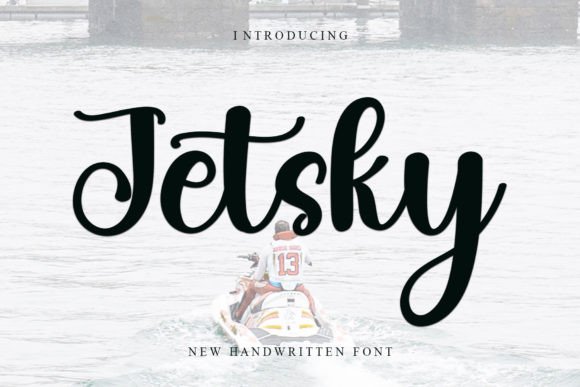
Journey into the realm of elegance with Jetsky, a breathtaking handwritten font family. Created by the visionary designers at FreshTypeINK, Jetsky stands as a testament to the power of cursive artistry. Its unique characteristics make it not just a font, but an expression of creativity and sophistication.
Immerse yourself in the depths of Jetsky's allure and discover a world where charm meets versatility. With its graceful curves, delicate strokes, and an inherent sense of romance, Jetsky transforms your digital creations into masterpieces. Whether you're crafting heartfelt greeting cards, designing eye-catching headlines, or adding a touch of magic to your email correspondence, Jetsky will elevate your words with its timeless beauty.
With Jetsky, you'll unlock a whole new level of creative possibilities. Its wide range of applications makes it the perfect choice for a diverse array of projects. Whether you're a seasoned designer or just starting your typographic journey, Jetsky will effortlessly elevate your work to new heights.
Indulge in the captivating charm of Jetsky and embrace the art of handwritten elegance. Let your words dance across the screen with a grace that will leave your audience spellbound. As you type, you'll feel the magic of Jetsky's curves and flourishes, inspiring you to create captivating content that resonates with your readers.
Don't settle for ordinary fonts that blend into the background. Choose Jetsky and embark on a typographic adventure that will leave a lasting impression. From heartfelt messages to bold statements, Jetsky will transform your words into visual poetry that speaks to the heart.